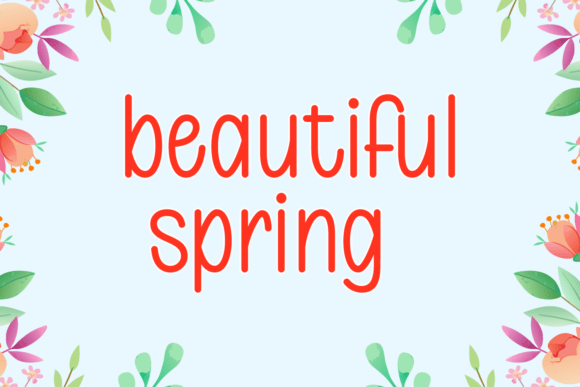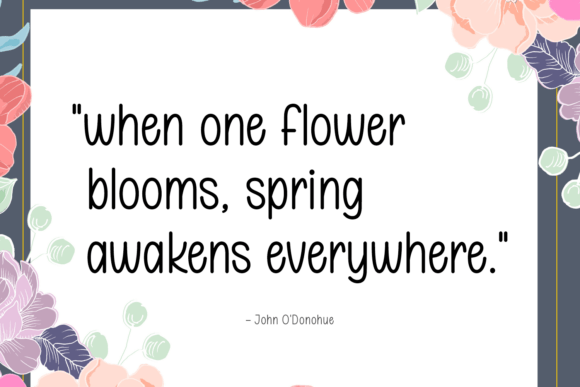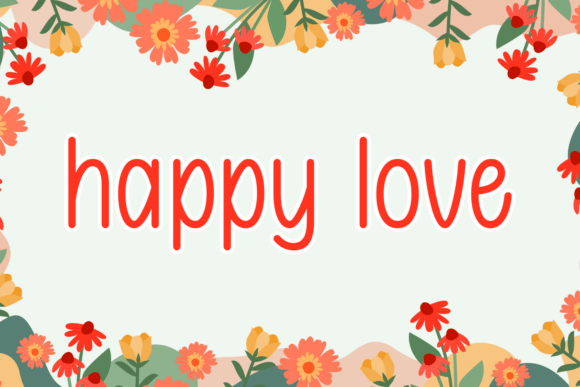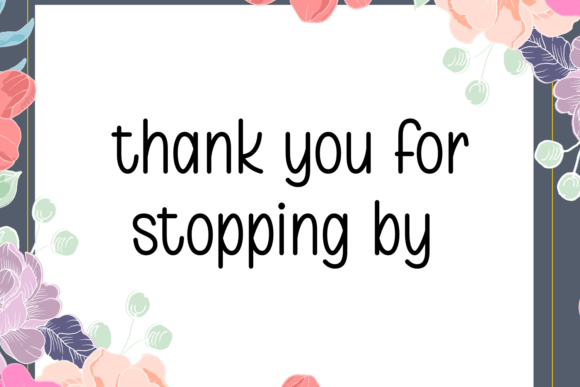
Introducing Full of Flowers Font: The Ultimate Choice for Whimsical Designs
Are you looking for a font that can add a touch of warmth, joy, and playfulness to your designs? Look no further than Full of Flowers Font! This charming and whimsical handwritten font is perfect for designers and crafters who want to create beautiful and eye-catching projects. In this article, we’ll explore the features and benefits of Full of Flowers Font and show you how it can elevate your designs to the next level.
A Smooth and Rounded Style that Radiates Warmth and Joy
Full of Flowers Font boasts a smooth, rounded style that exudes warmth and joy. Its cheerful and casual lettering makes it perfect for a wide range of design projects, from greeting cards and invitations to branding, children’s books, and DIY projects. The font’s friendly and approachable feel makes it ideal for designers who want to create a connection with their audience.
Perfect for Spring, Floral Themes, and Cozy Crafts
As its name suggests, Full of Flowers Font is perfect for spring-inspired designs, floral themes, and cozy crafts. The font’s whimsical and playful feel makes it ideal for designers who want to create projects that evoke a sense of freshness and renewal. Whether you’re designing a Mother’s Day card, a spring-themed invitation, or a floral-inspired branding project, Full of Flowers Font is the perfect choice.
Features and Benefits of Full of Flowers Font
So, what makes Full of Flowers Font so special? Here are some of its key features and benefits:
• Whimsical and playful feel: Full of Flowers Font has a unique and playful feel that adds a touch of fun and elegance to your designs.
• Smooth and rounded style: The font’s smooth and rounded style makes it perfect for designs that require a friendly and approachable feel.
• Cheerful and casual lettering: The font’s cheerful and casual lettering makes it perfect for a wide range of design projects, from greeting cards to branding.
• Perfect for spring and floral themes: Full of Flowers Font is ideal for designers who want to create projects that evoke a sense of freshness and renewal.
• Easy to read and use: The font is easy to read and use, making it perfect for designers of all skill levels.
Using Full of Flowers Font in Your Designs
So, how can you use Full of Flowers Font in your designs? Here are some ideas to get you started:
• Greeting cards and invitations: Use Full of Flowers Font to create beautiful and eye-catching greeting cards and invitations for special occasions.
• Branding and packaging: The font’s playful and whimsical feel makes it perfect for branding and packaging projects that require a friendly and approachable feel.
• Children’s books and educational materials: Full of Flowers Font is ideal for children’s books and educational materials that require a fun and engaging feel.
• DIY projects and crafts: The font’s smooth and rounded style makes it perfect for DIY projects and crafts that require a personal touch.
Tips and Tricks for Getting the Most Out of Full of Flowers Font
Here are some tips and tricks for getting the most out of Full of Flowers Font:
• Experiment with different colors and textures: Add an extra layer of depth and interest to your designs by experimenting with different colors and textures.
• Pair with other fonts: Pair Full of Flowers Font with other fonts to create a unique and eye-catching look.
• Use in combination with images and graphics: Use Full of Flowers Font in combination with images and graphics to create a visually appealing design.
Font Name Full of Flowers Font
Author Ade (7NTypes)
In conclusion, Full of Flowers Font is a charming and whimsical handwritten font that is perfect for designers and crafters who want to add a touch of warmth, joy, and playfulness to their designs. Its smooth and rounded style, cheerful and casual lettering, and whimsical feel make it ideal for a wide range of design projects, from greeting cards and invitations to branding, children’s books, and DIY projects. With its ease of use and versatility, Full of Flowers Font is a must-have font for any designer or crafter looking to elevate their designs to the next level.